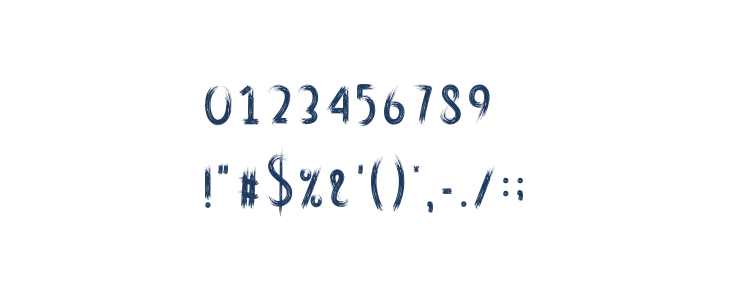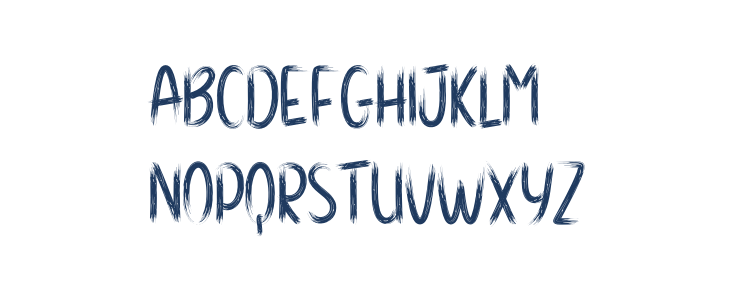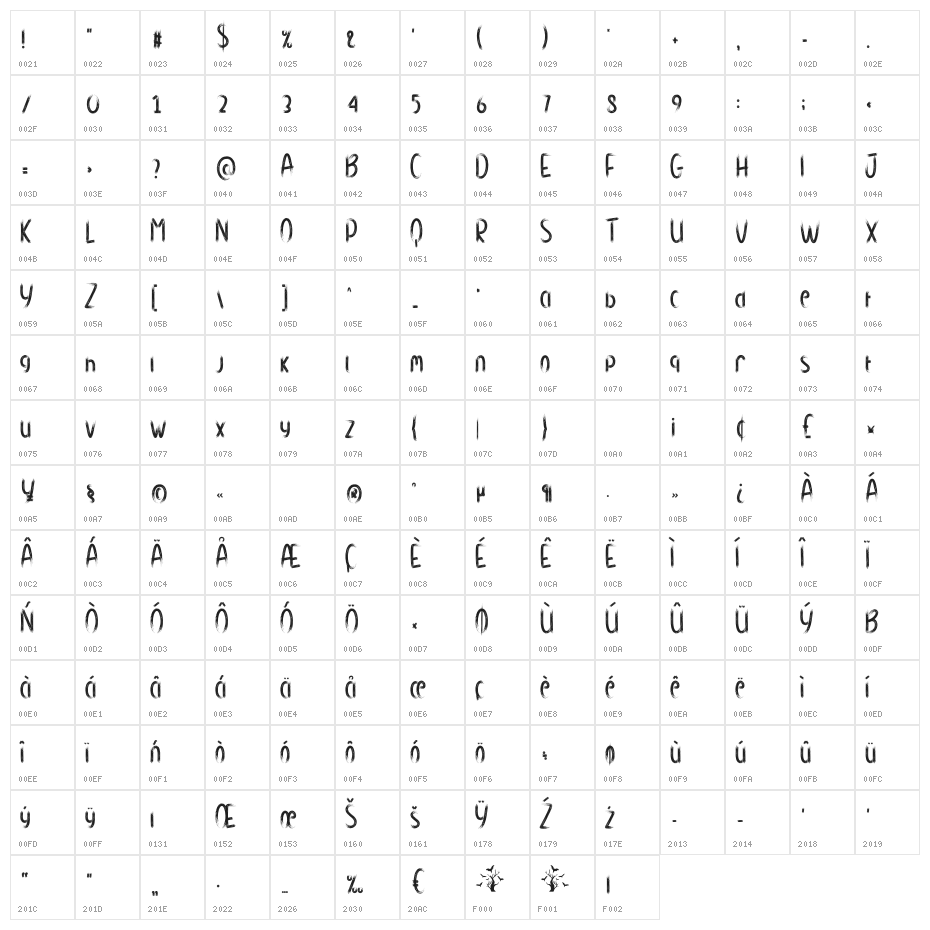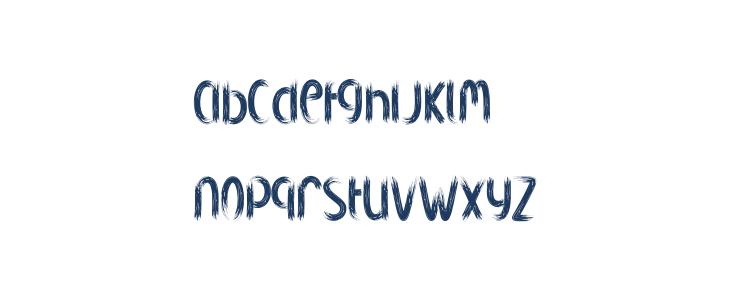
Hauntedtree Font
Hauntedtree Description
A decorative display font with rough, brush-like strokes that create a distressed, eerie appearance. The characters have uneven edges and varying stroke thickness, evoking a spooky or haunted atmosphere.
| Overall Style | Decorative, Spooky, Grunge |
| Use Case | Headlines, Posters, Logos, Event Flyers |
| Proposed Projects | Halloween posters, horror movie titles, haunted house flyers, themed party invitations, spooky branding. |